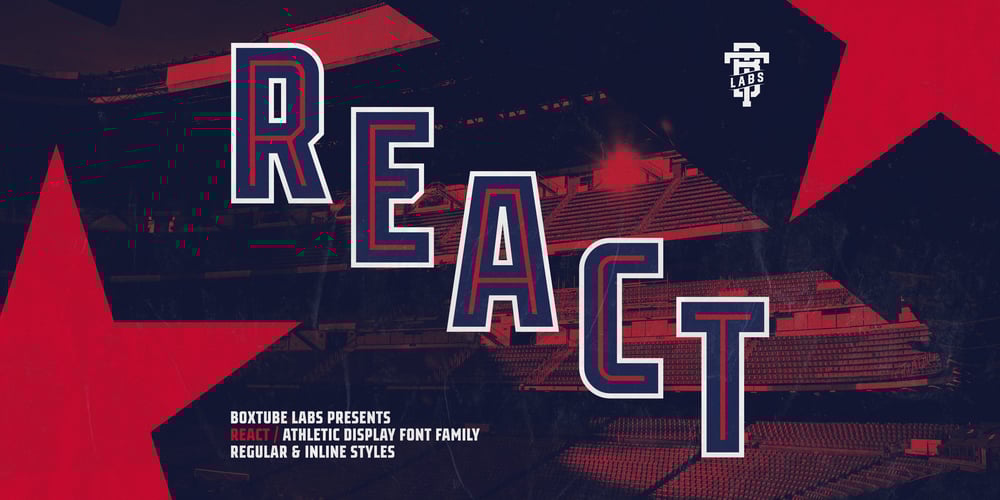
React BTL
React BTL font
React BTL Font Family was designed by Tobias Alexandersson and published by BoxTube Labs. React BTL contains 2 styles and family package options. React is modern athletic display block font family. It’s timeless shapes and features will give you an instant athletic feel to your project. React features both chamfered corners and rounded giving it a unique approach.These fonts are perfect for sports logos, branding, posters, apparel design, magazine headlines, labels and so much more.